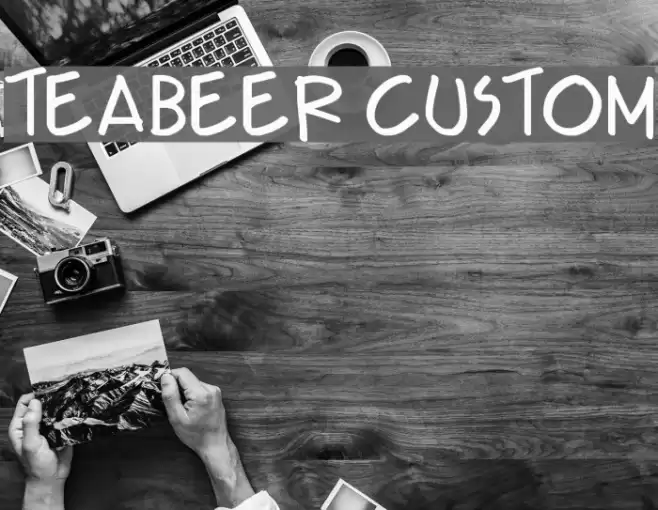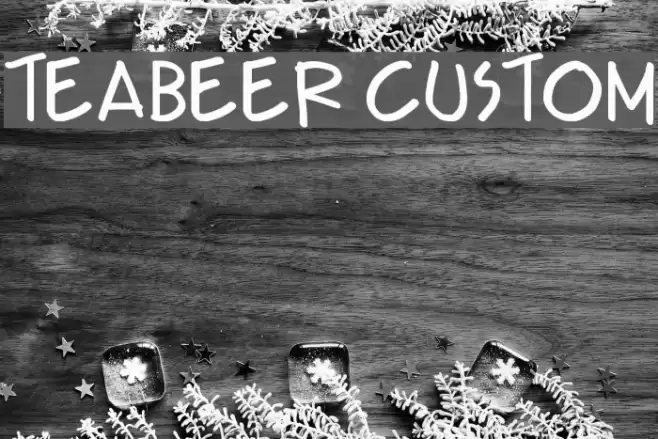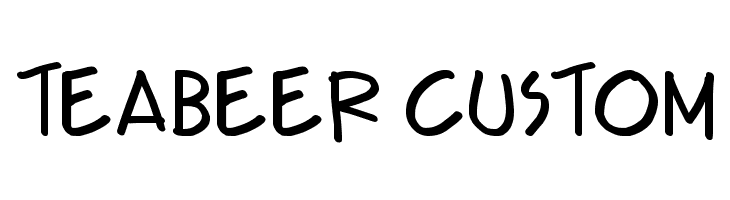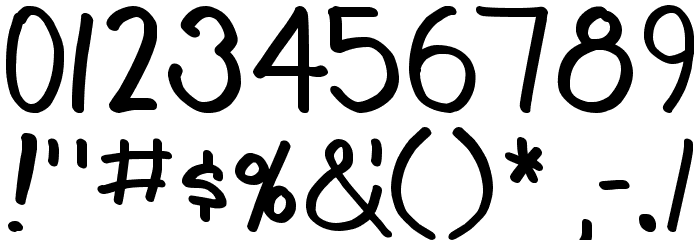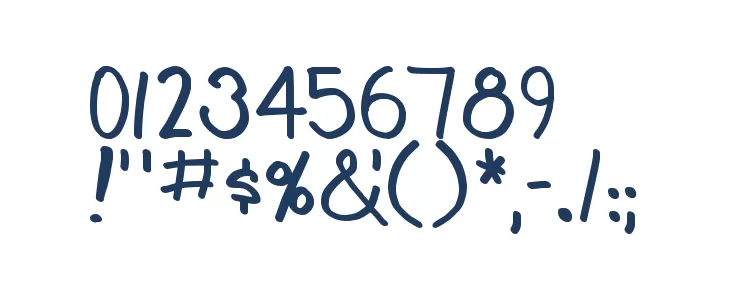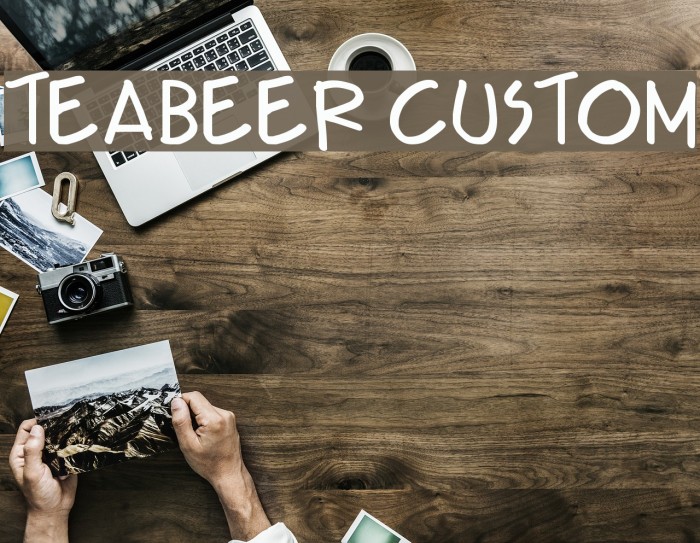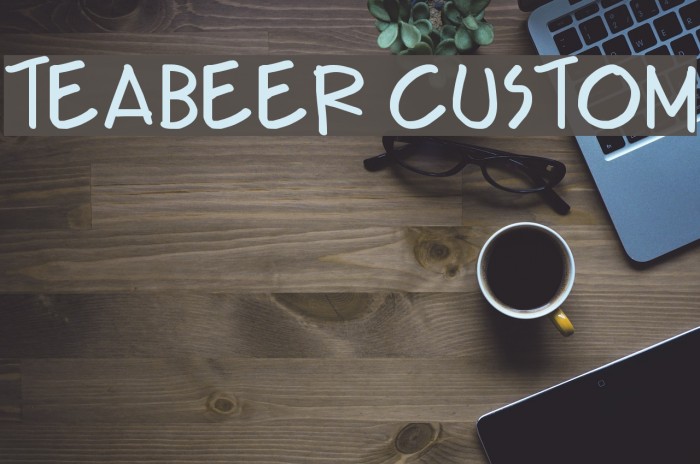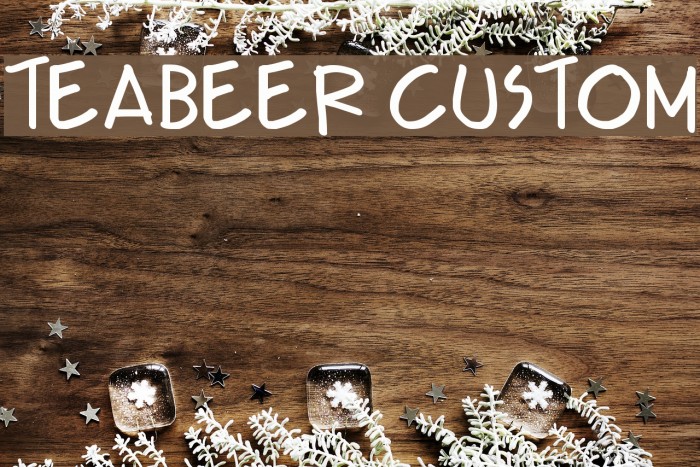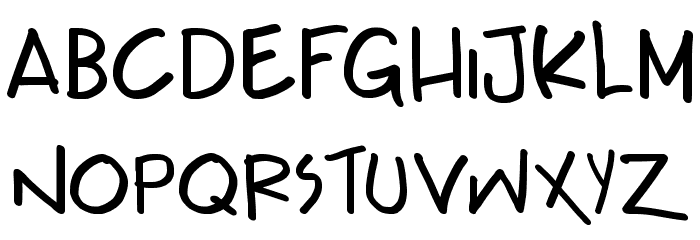
Teabeer Custom Font
Teabeer Custom Description
This font features a playful and casual handwritten style, characterized by its smooth and rounded letterforms. The uppercase and lowercase letters maintain a consistent flow, giving it a friendly and approachable appearance. The numerals and special characters are designed to match the overall aesthetic, ensuring uniformity across all elements. The strokes are even and moderately thick, contributing to a balanced and legible look. This font is versatile and can be used in various contexts where a personal touch is desired.
A playful, casual handwritten font with smooth, rounded letterforms from Cartoon fonts.
- Proposed Projects: Ideal for greeting cards, children's books, casual branding, and social media graphics.
- Overall Style: Casual
- Use Case: Logos, Headlines, Informal text